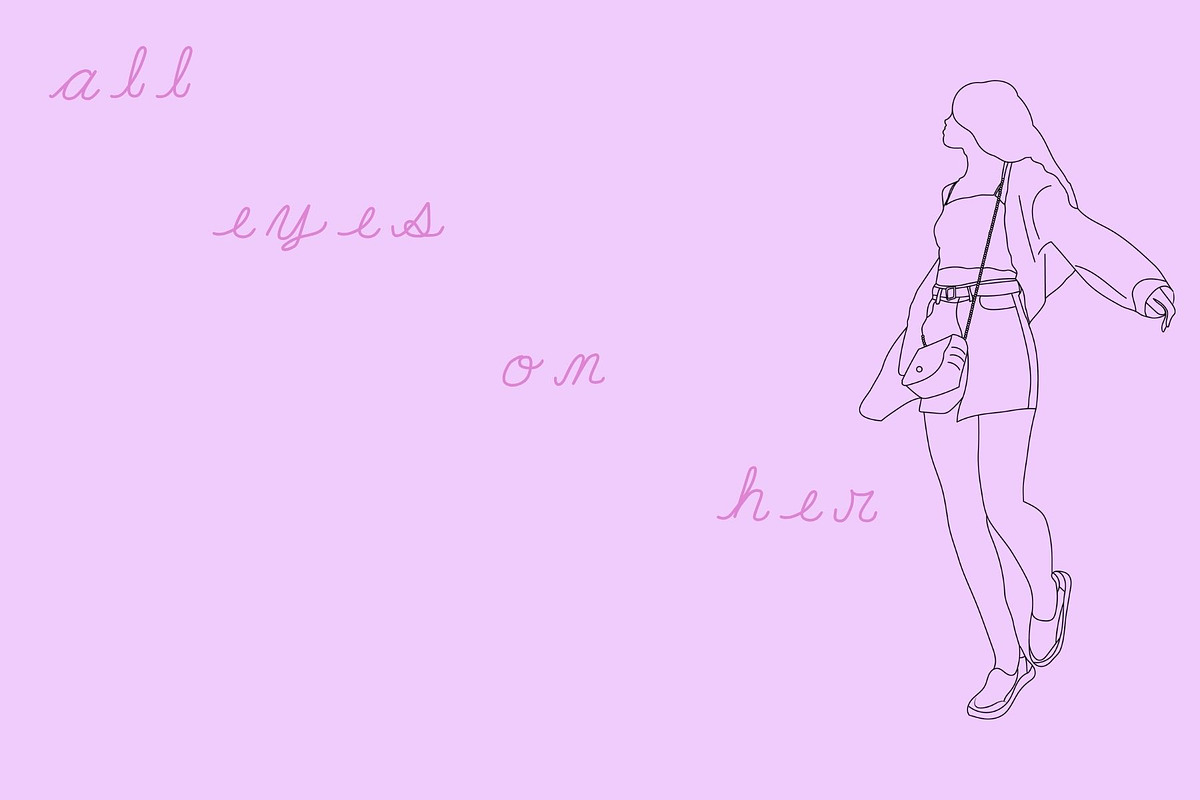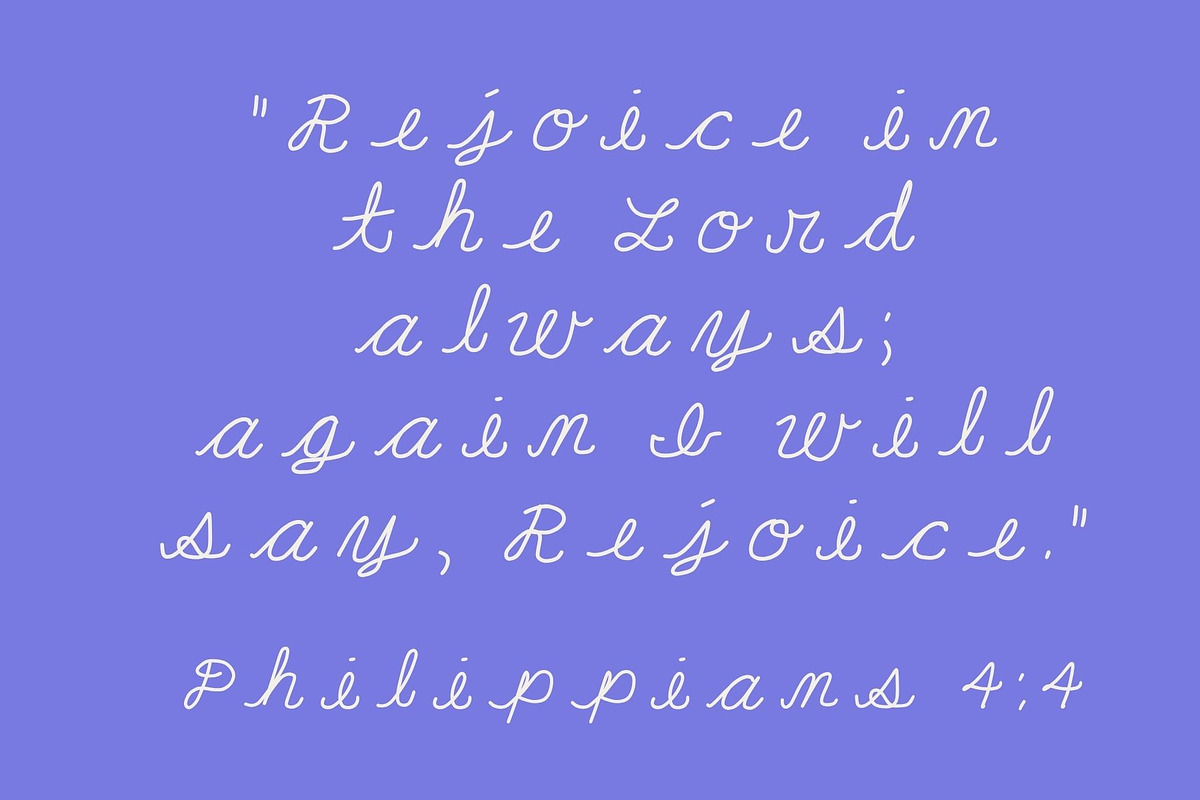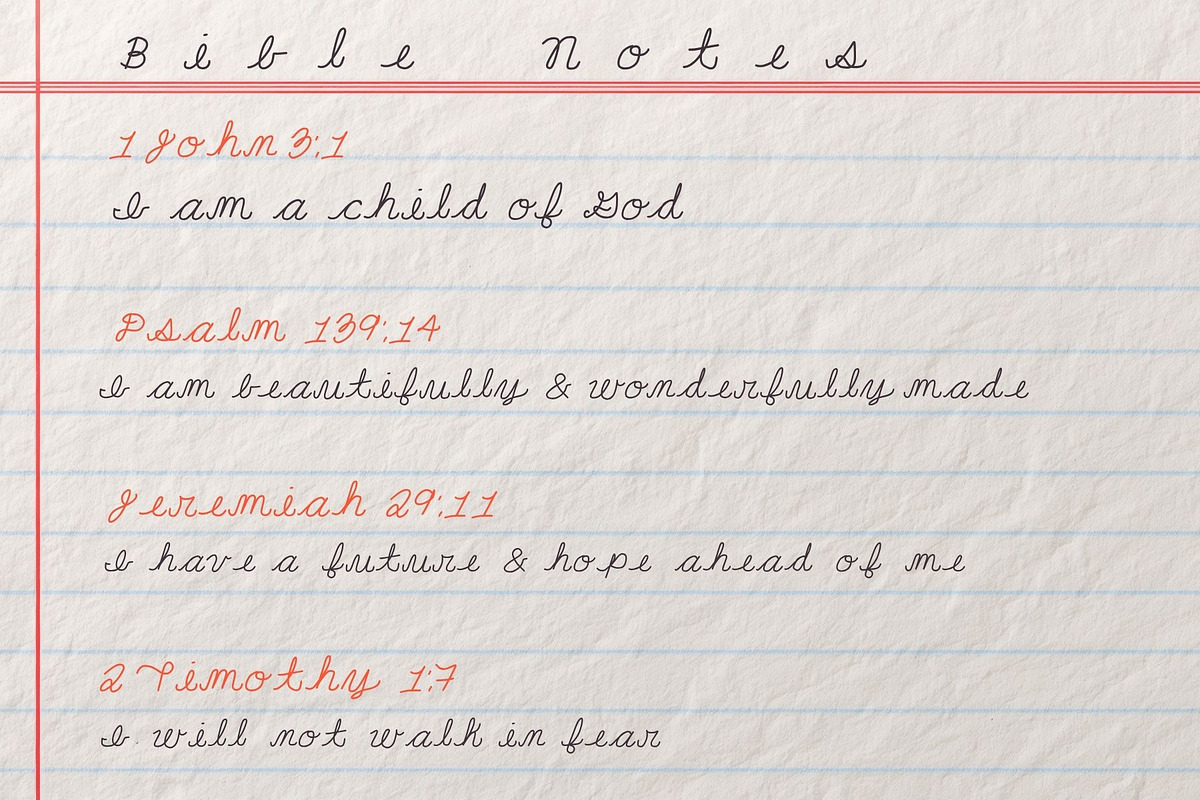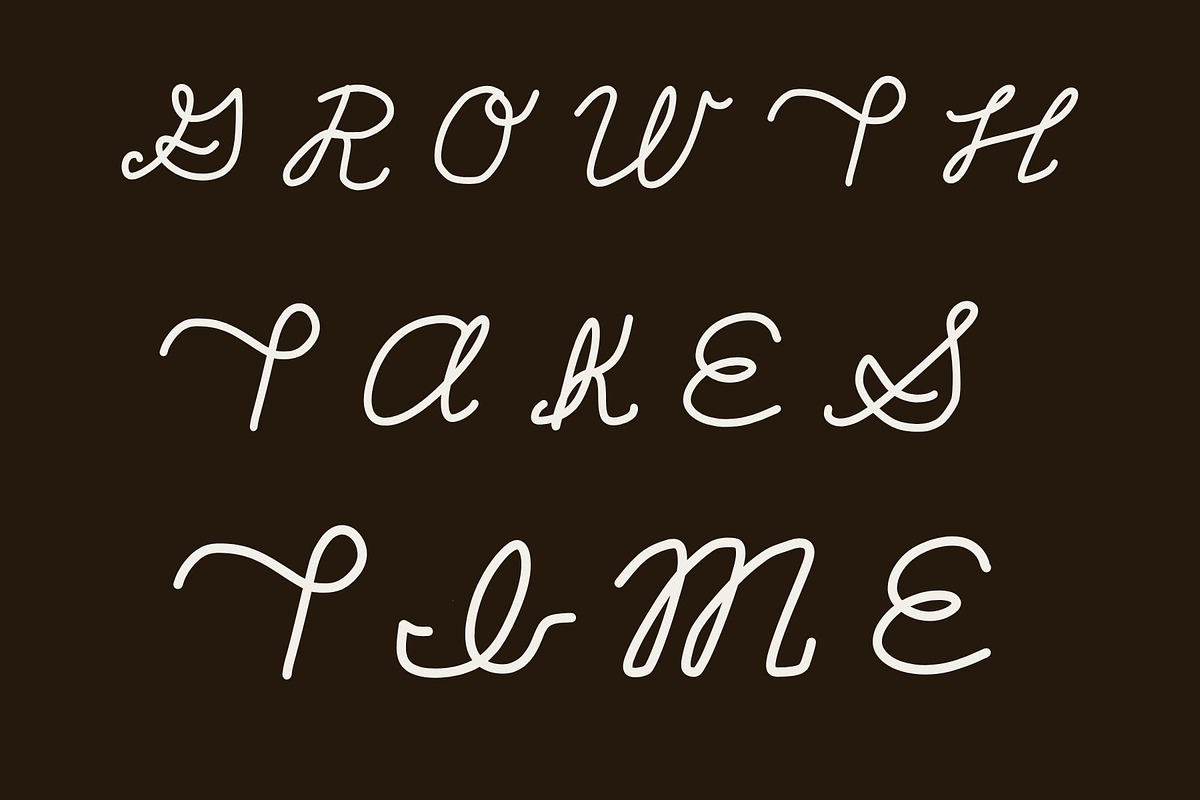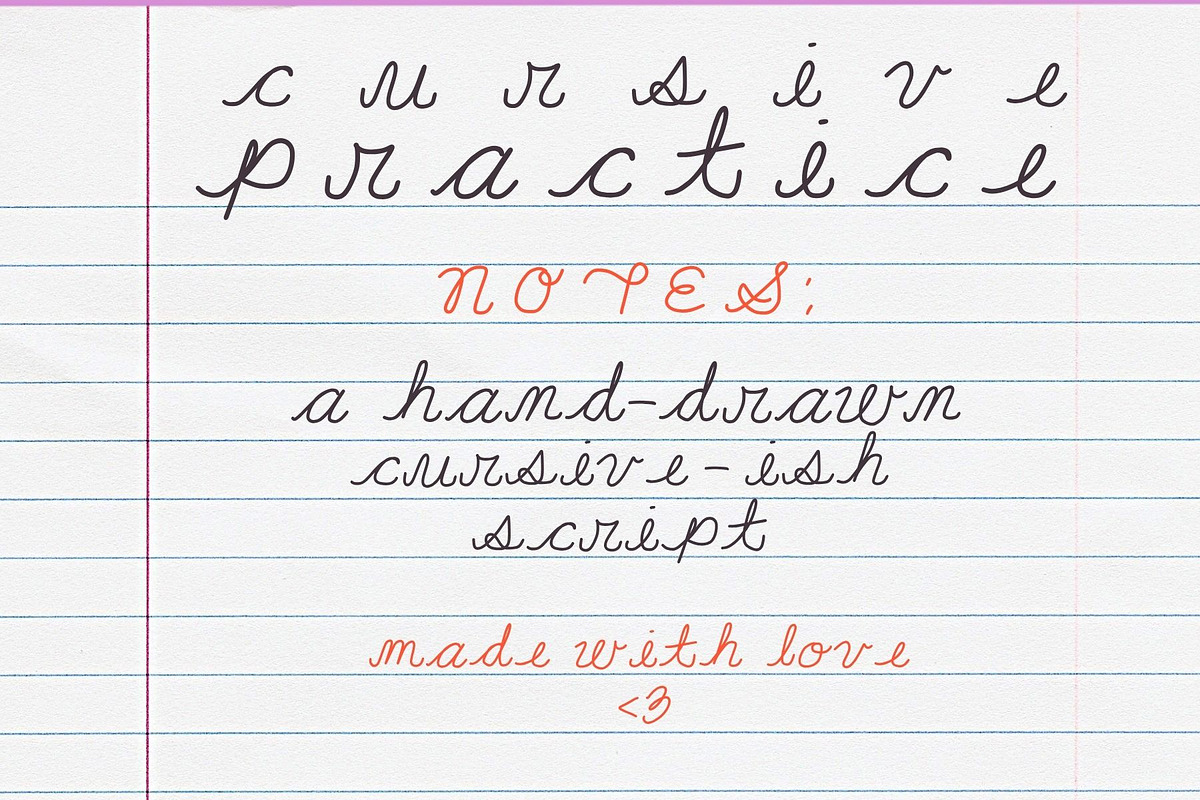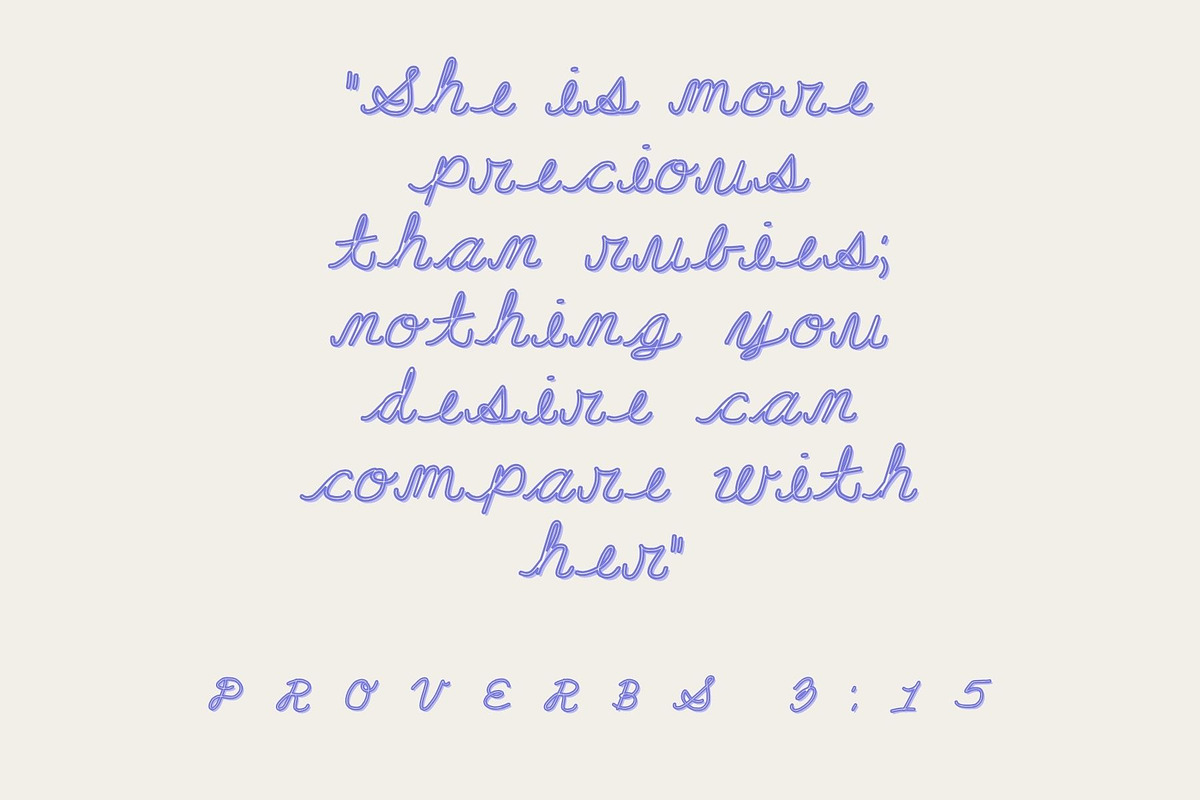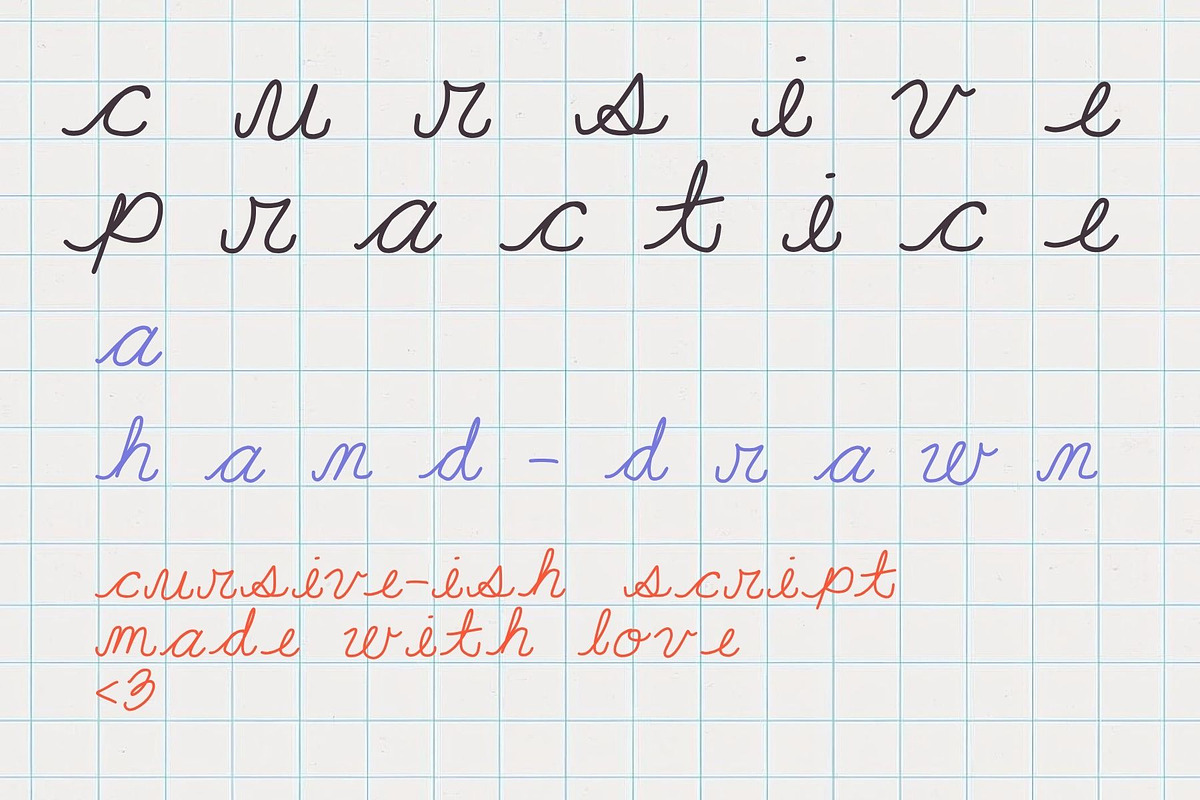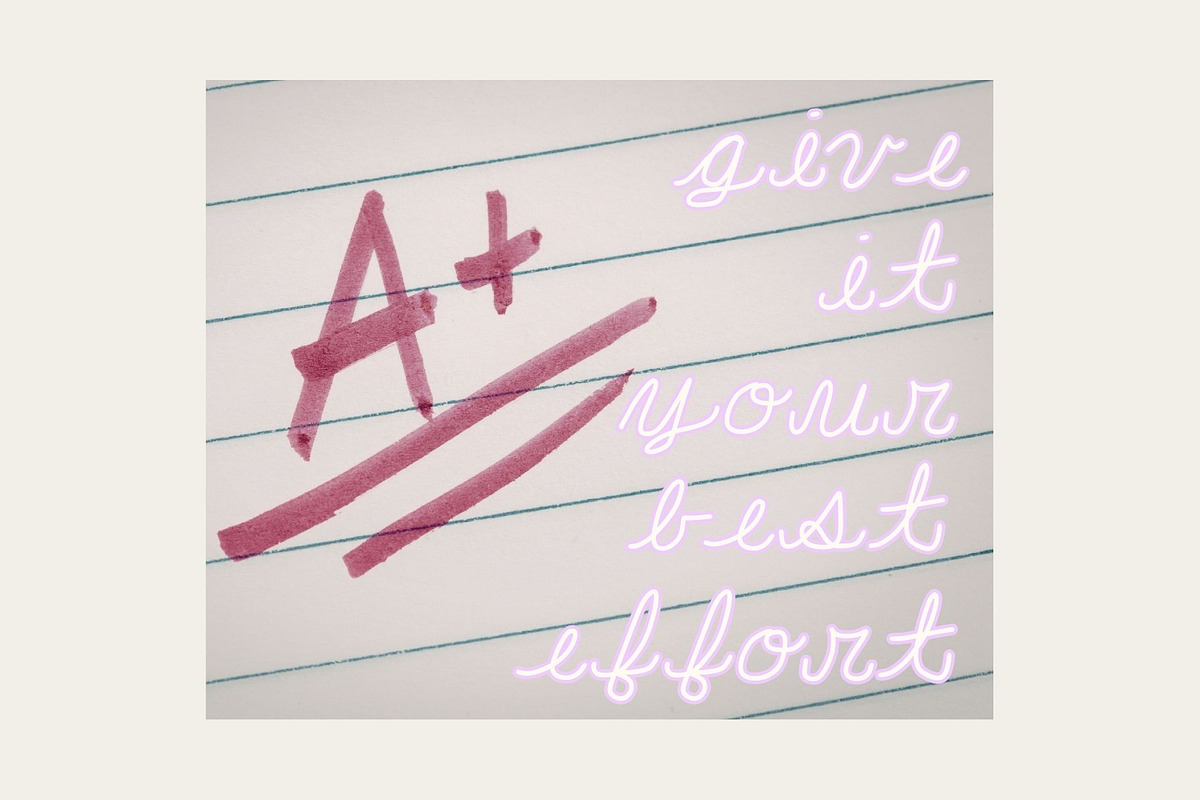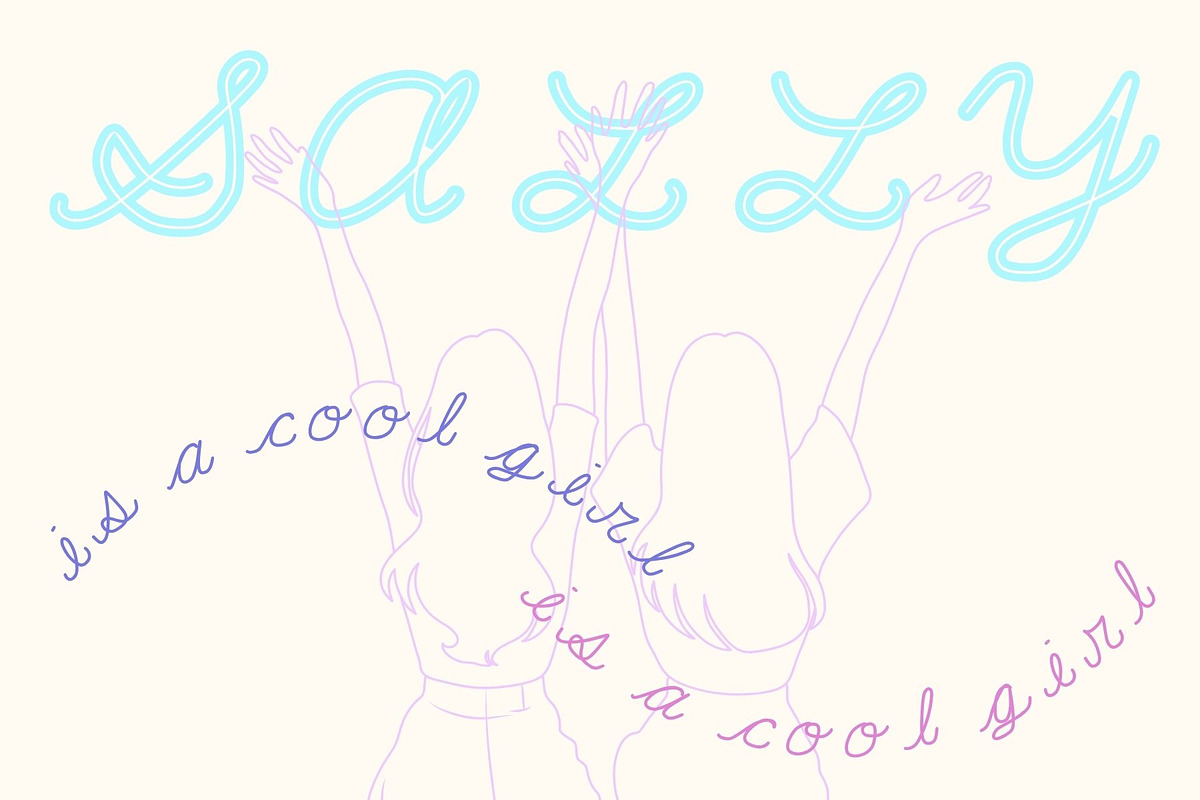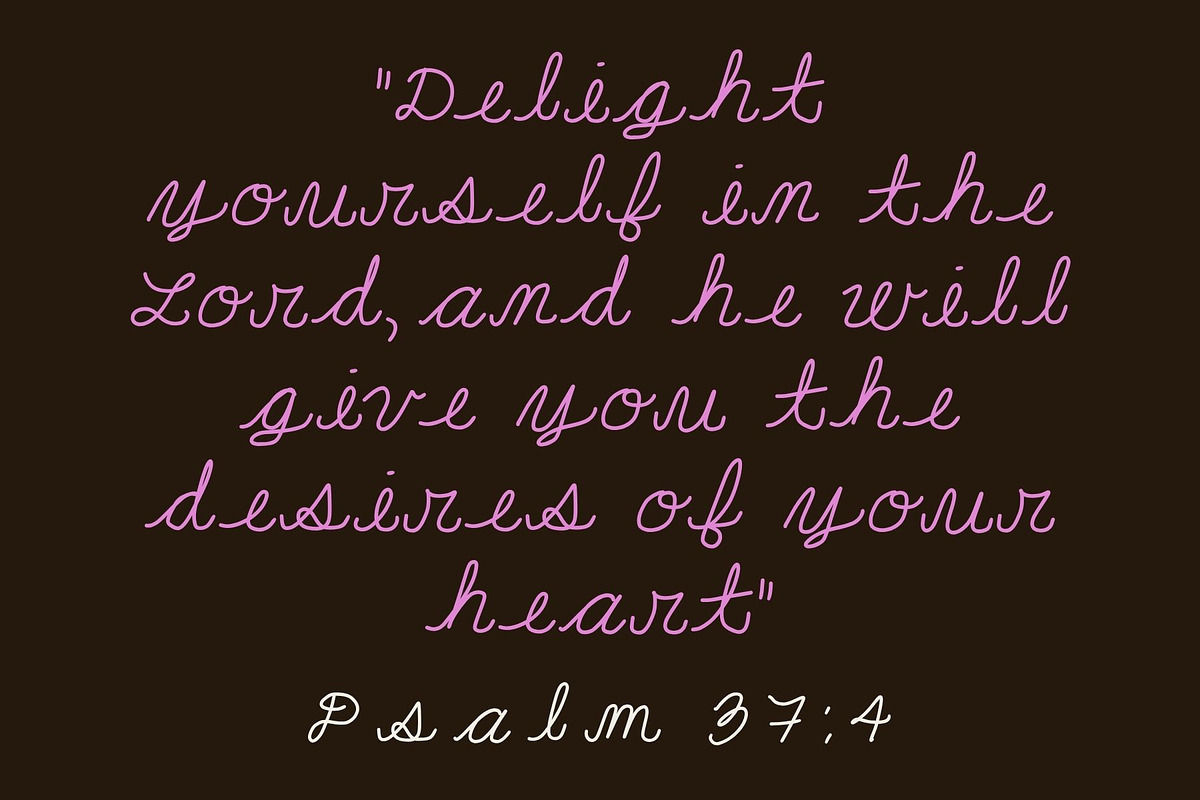
Cursive Practice a Hand-drawn Font
Cursive Practice
Cursive Practice is a clean and aesthetically pleasing cursive-inspired font that evokes memories of perfecting cursive letters during school days. This cute and girly typeface is fun, neat, and visually appealing, featuring wonderfully curved individual letters that come together delightfully. Carefully crafted by hand, Cursive Practice offers a warmth that only human artistry can provide. It is ideal for a variety of applications, including wedding stationery, baby shower invitations, book cover designs, and product labels. You will enjoy using this beautiful font, and your customers will appreciate its visual charm.